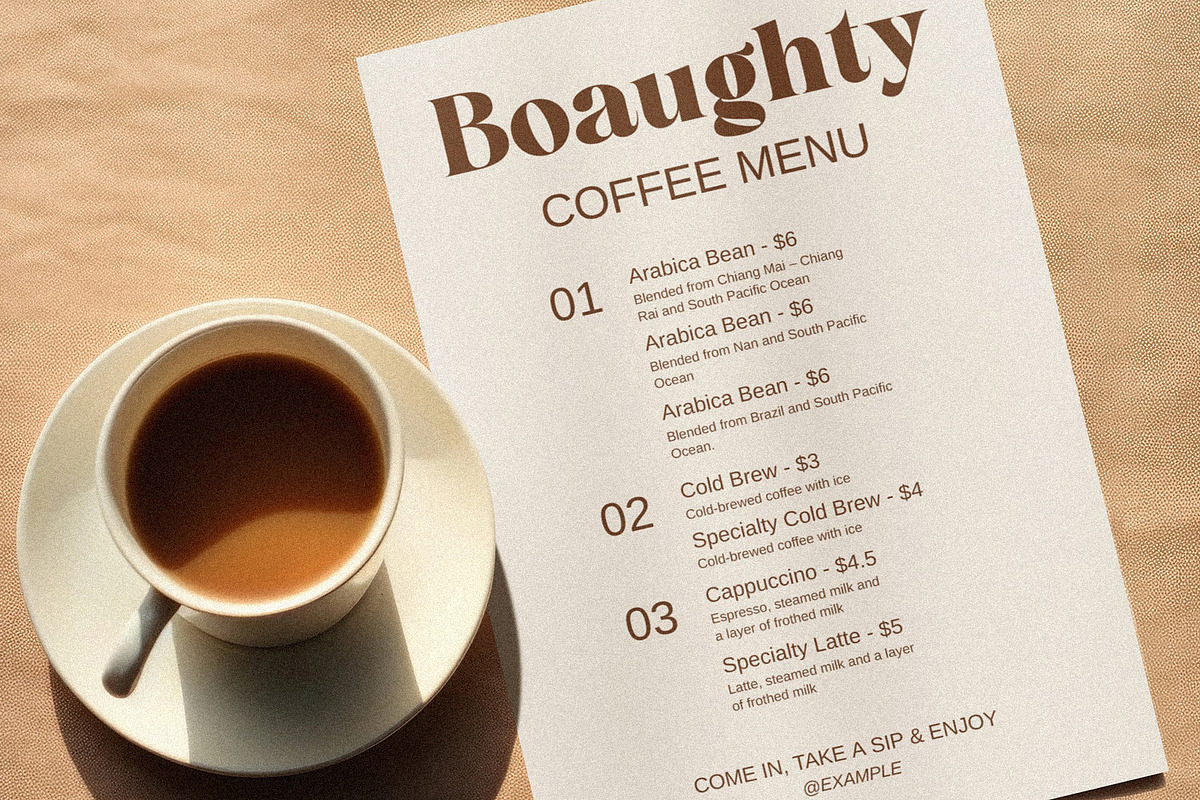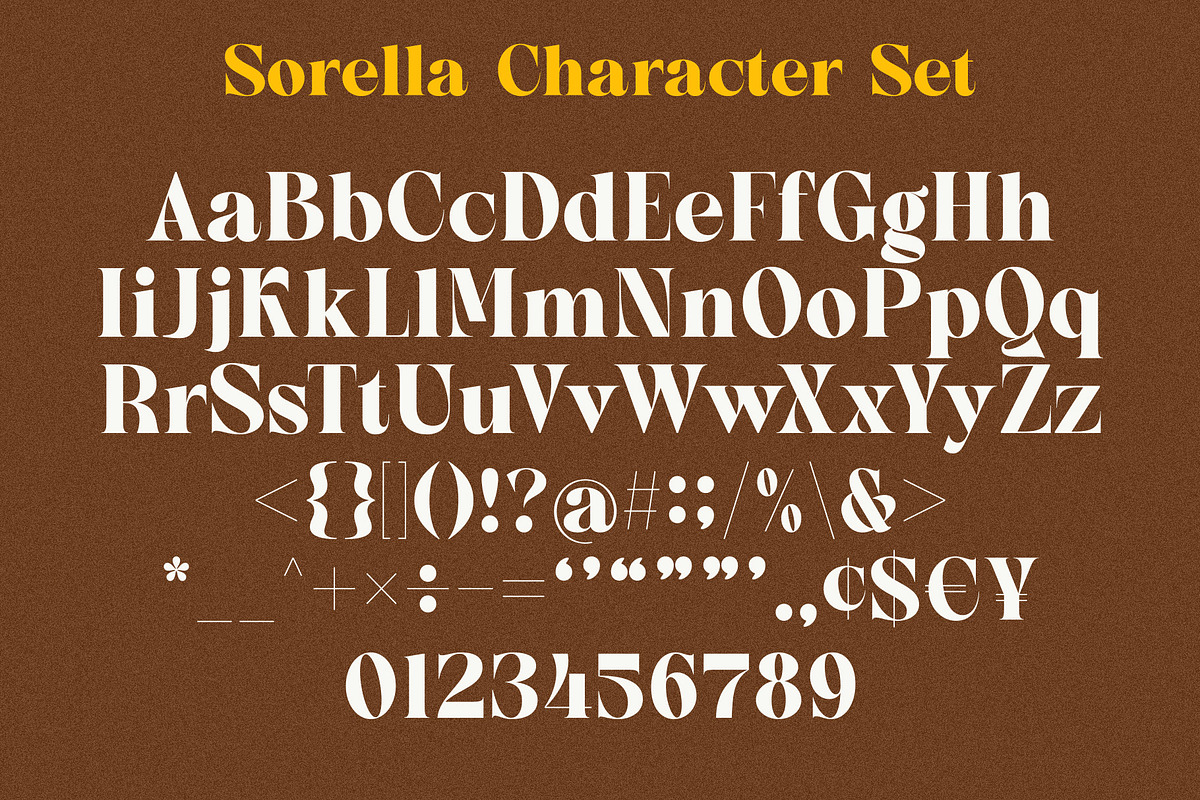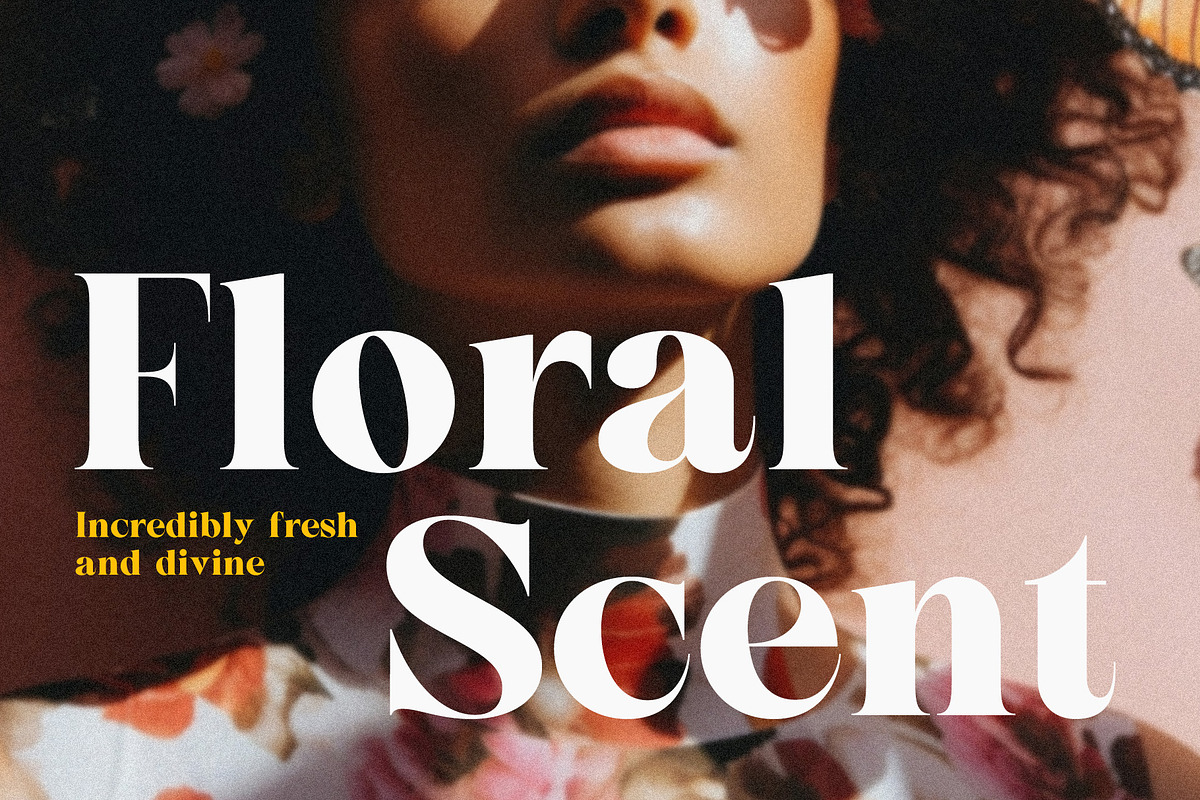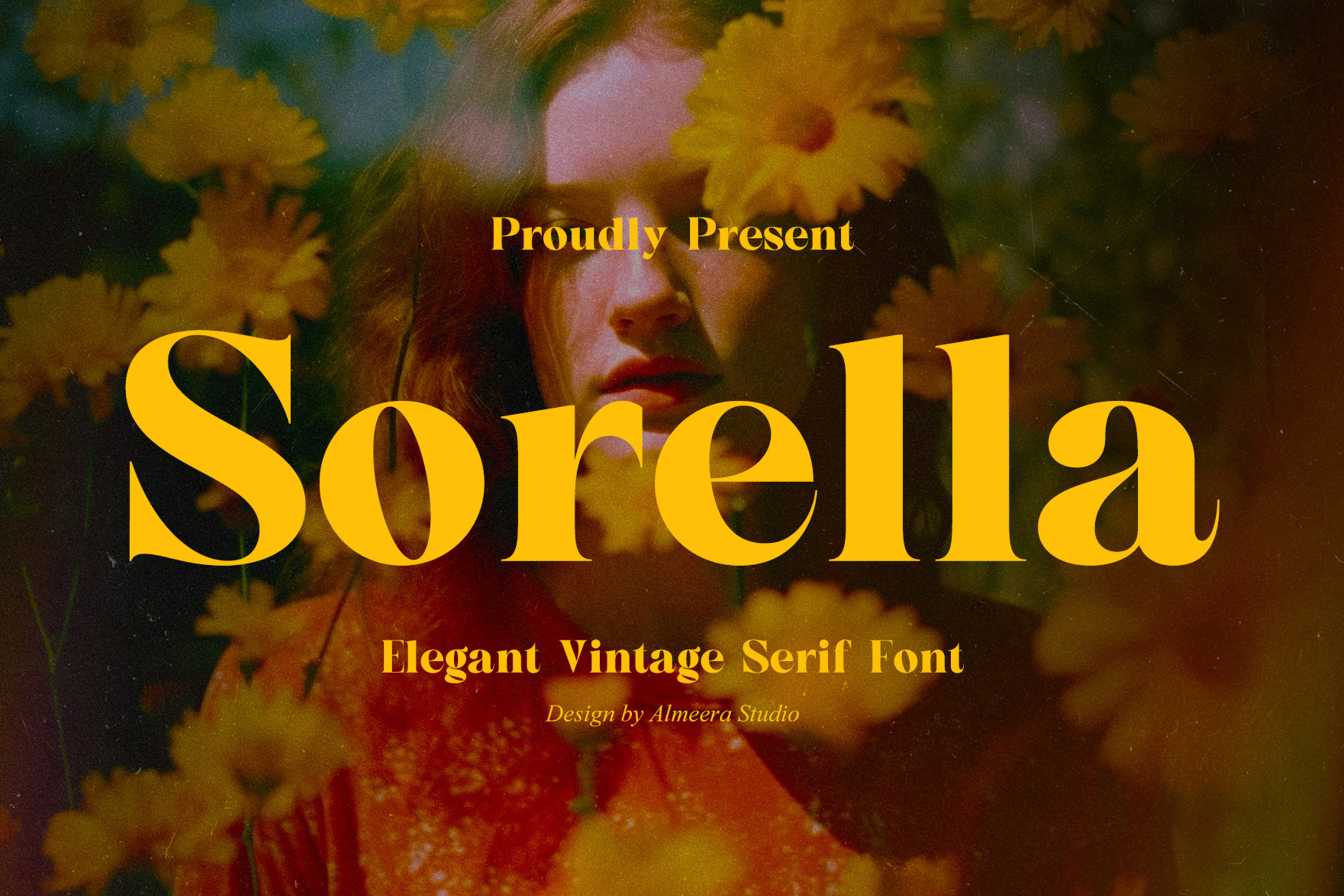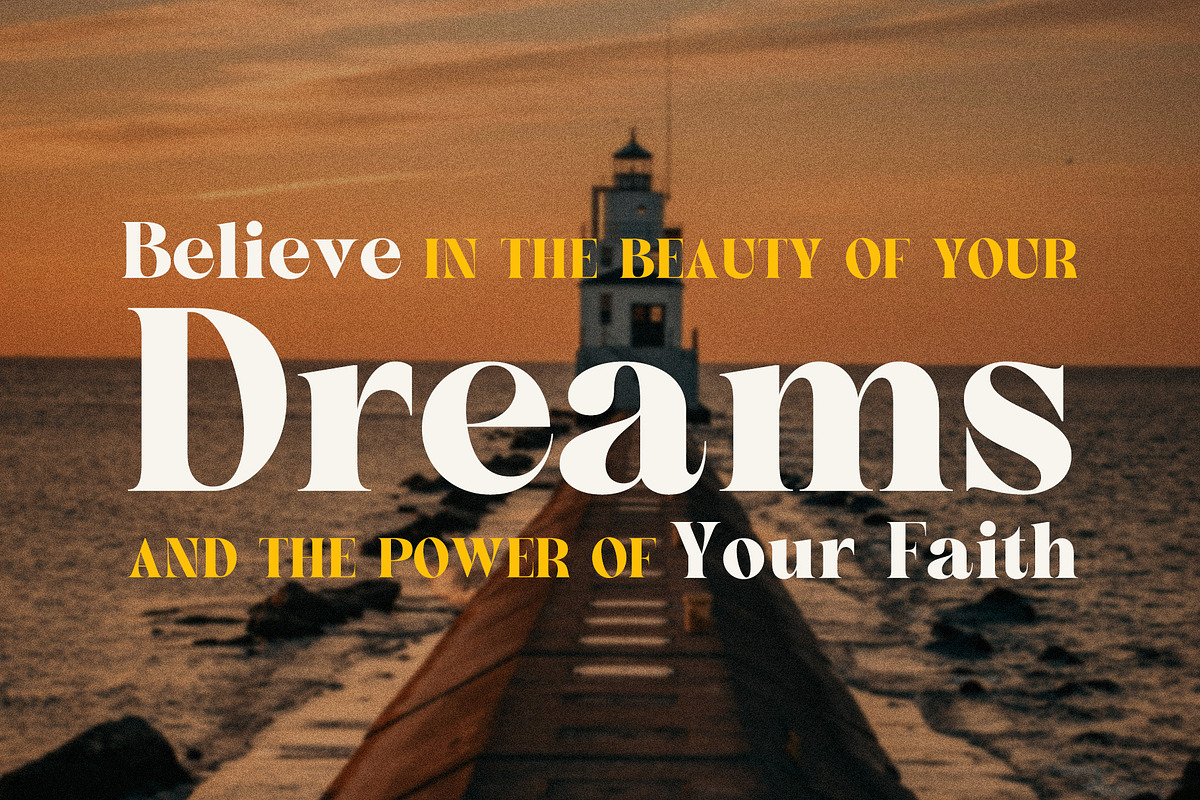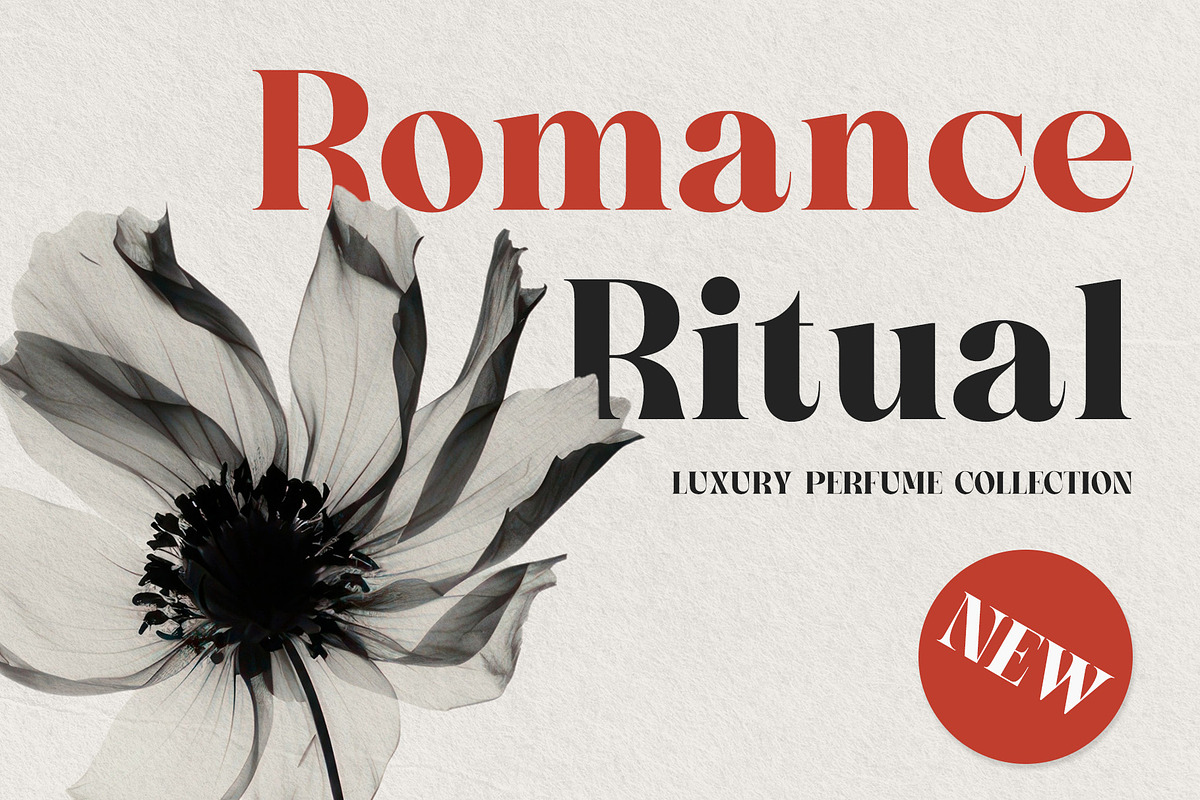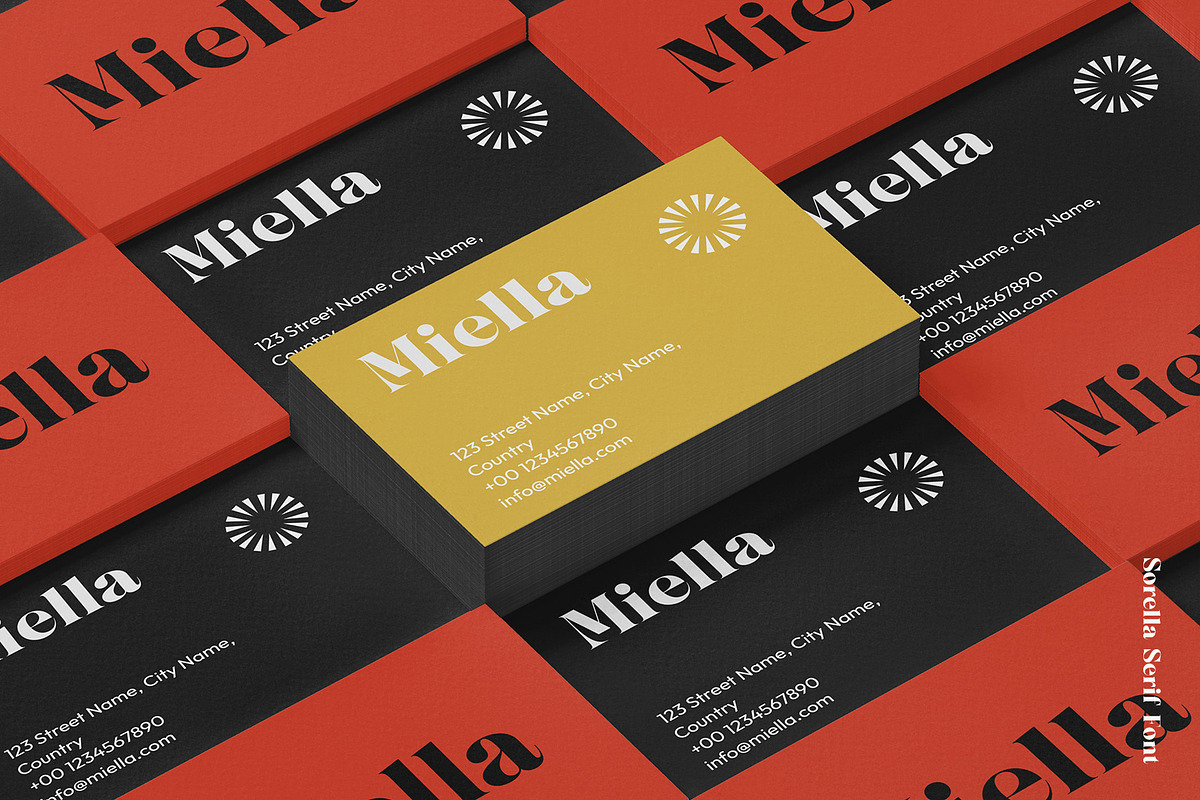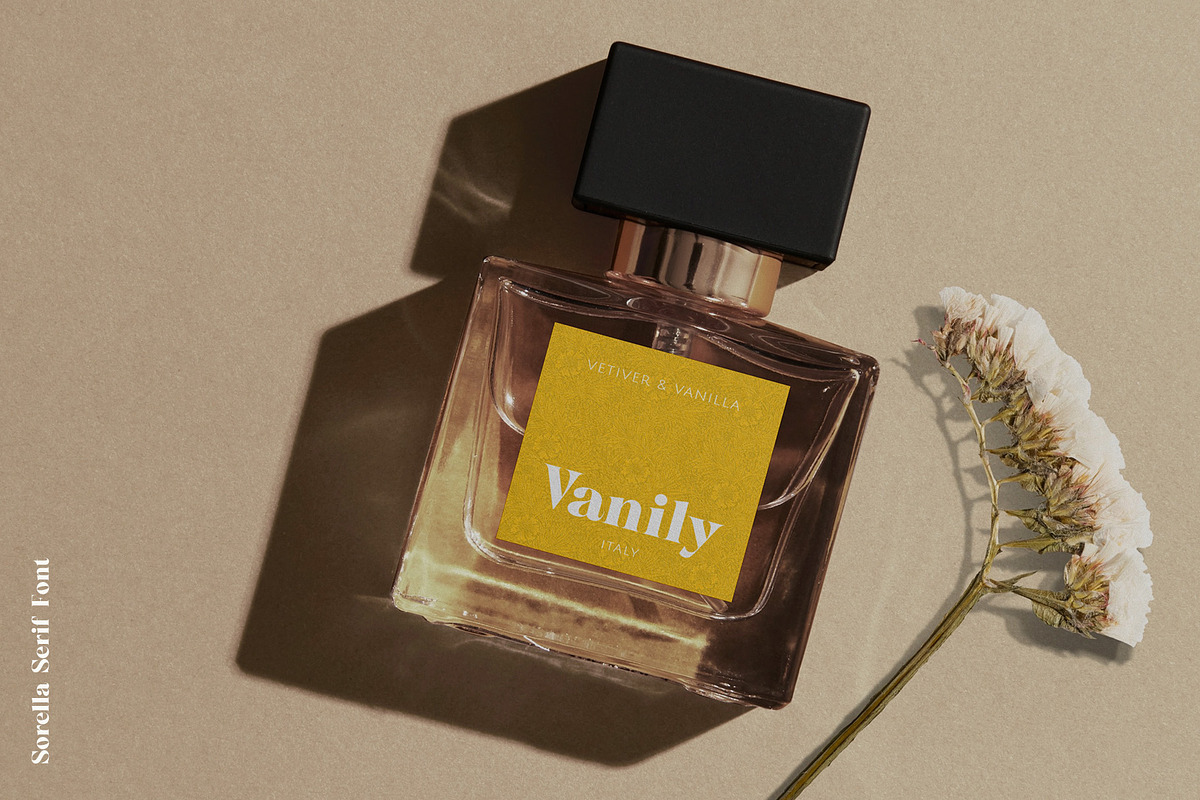
Sorella - Bold Serif Font
Introducing Sorella - Bold serif font. Sorella is a bold, stylish & elegant serif font, This type of font is very suitable for your various needs such as branding projects, logos, social media posts, advertisements, labels, product packaging, photography, wedding designs, watermarks, invitation product designs, stationery, and any project.